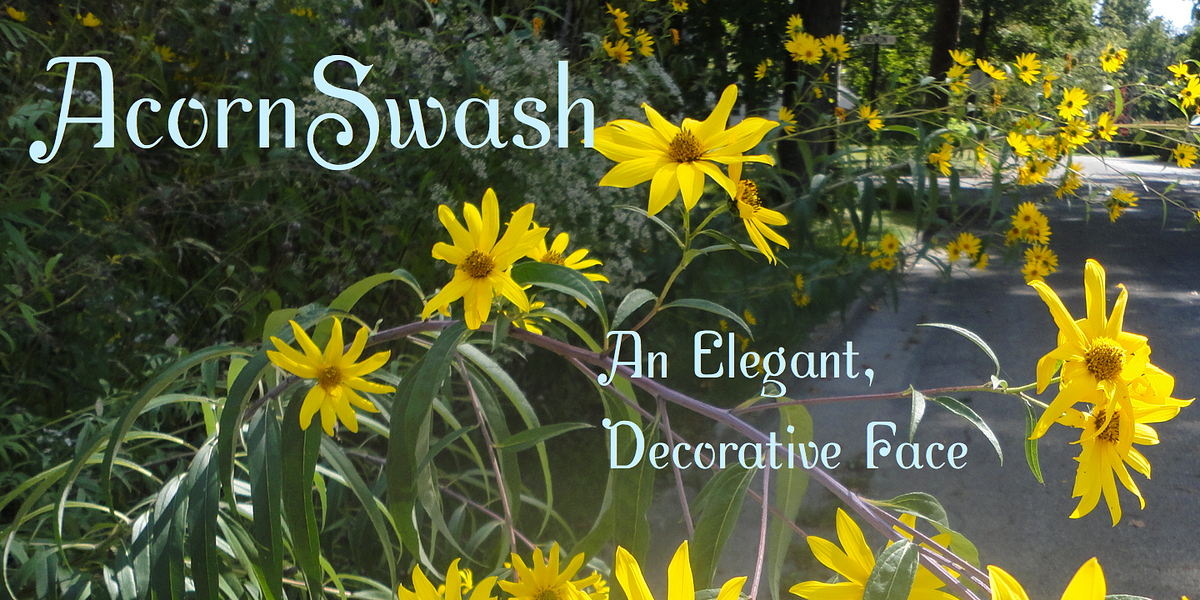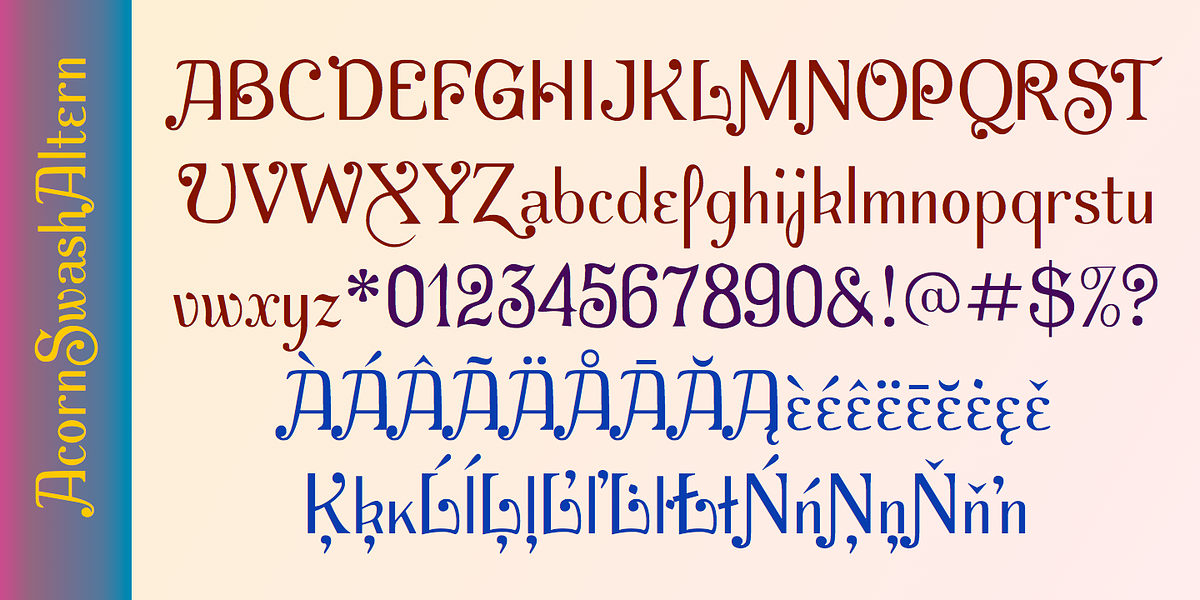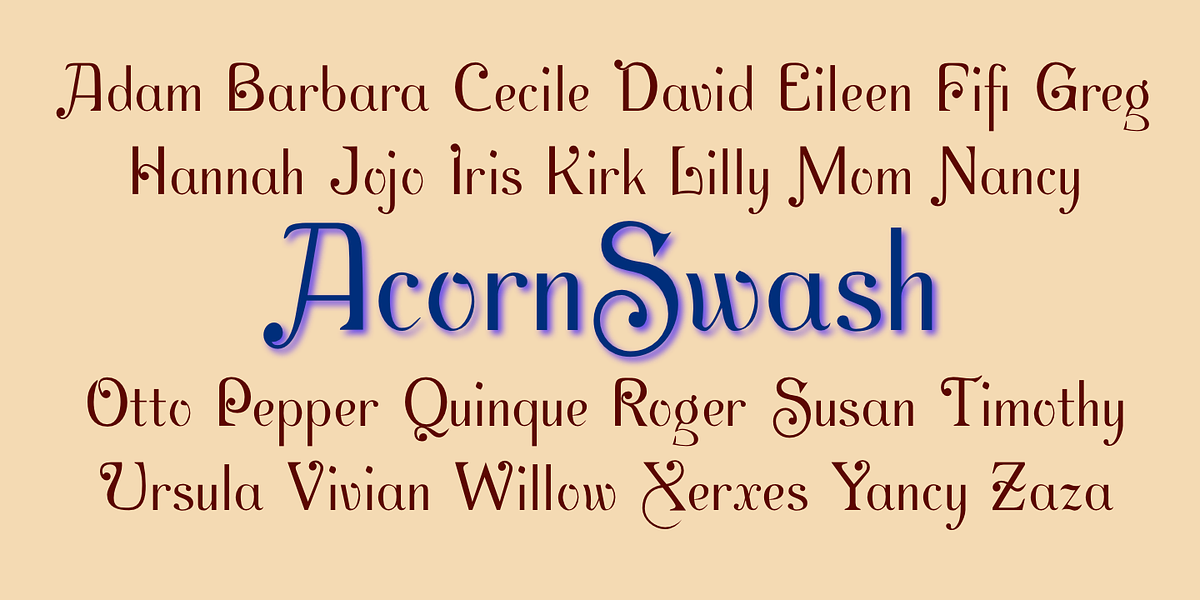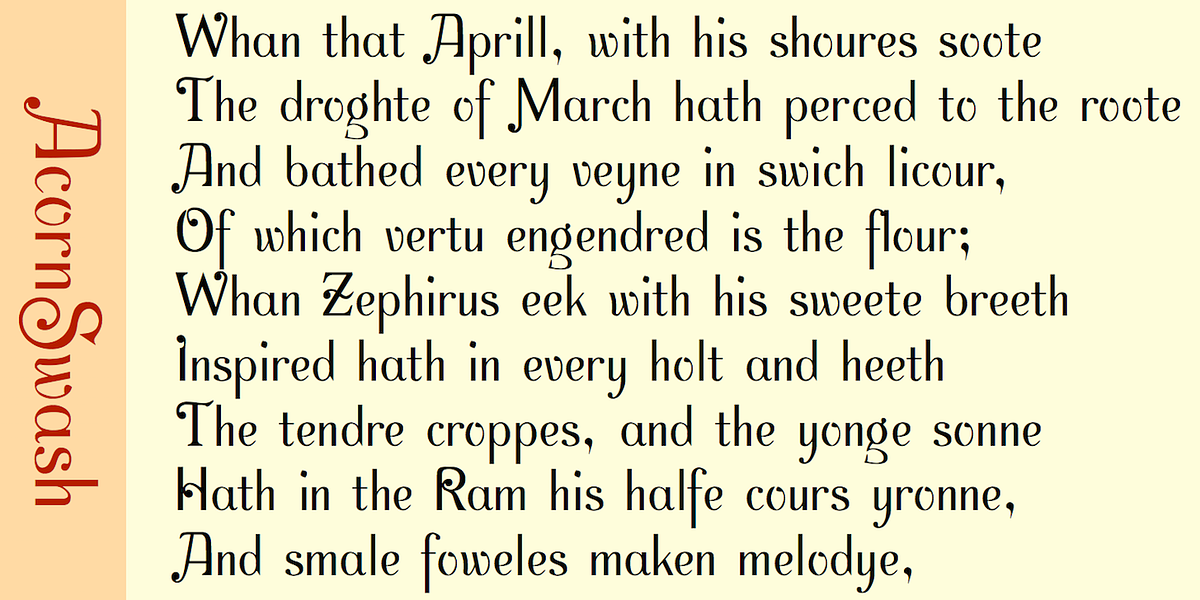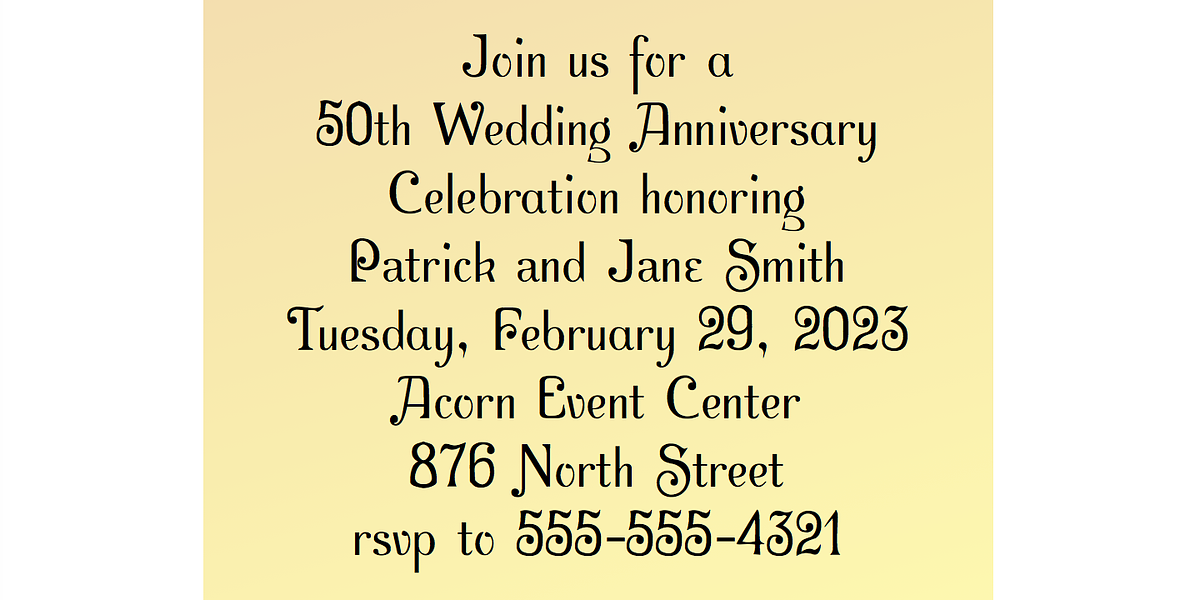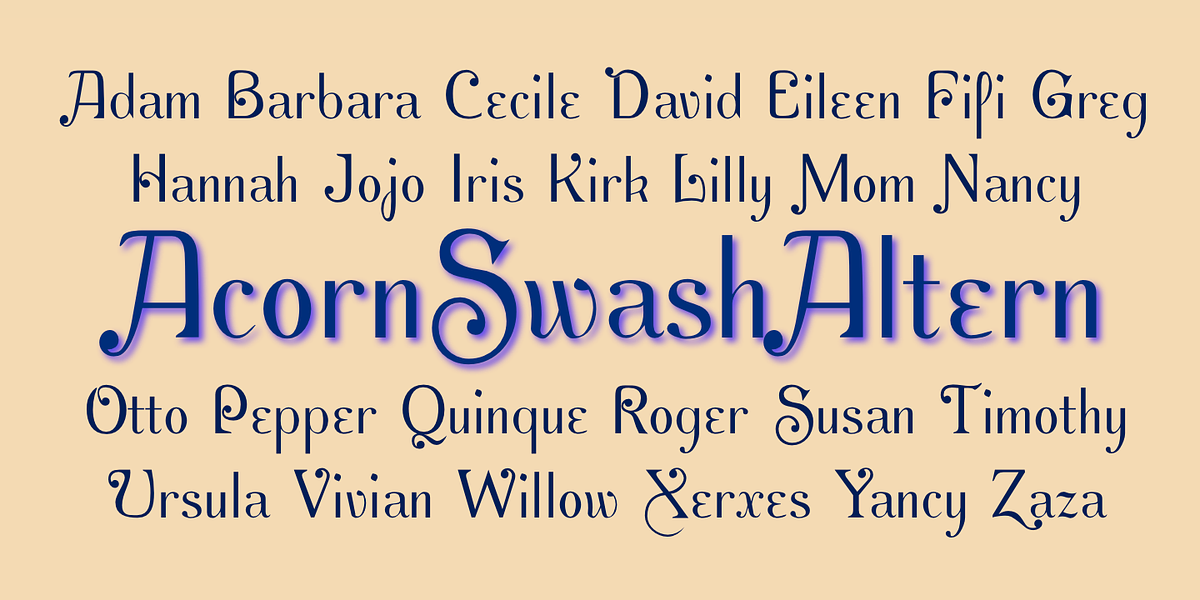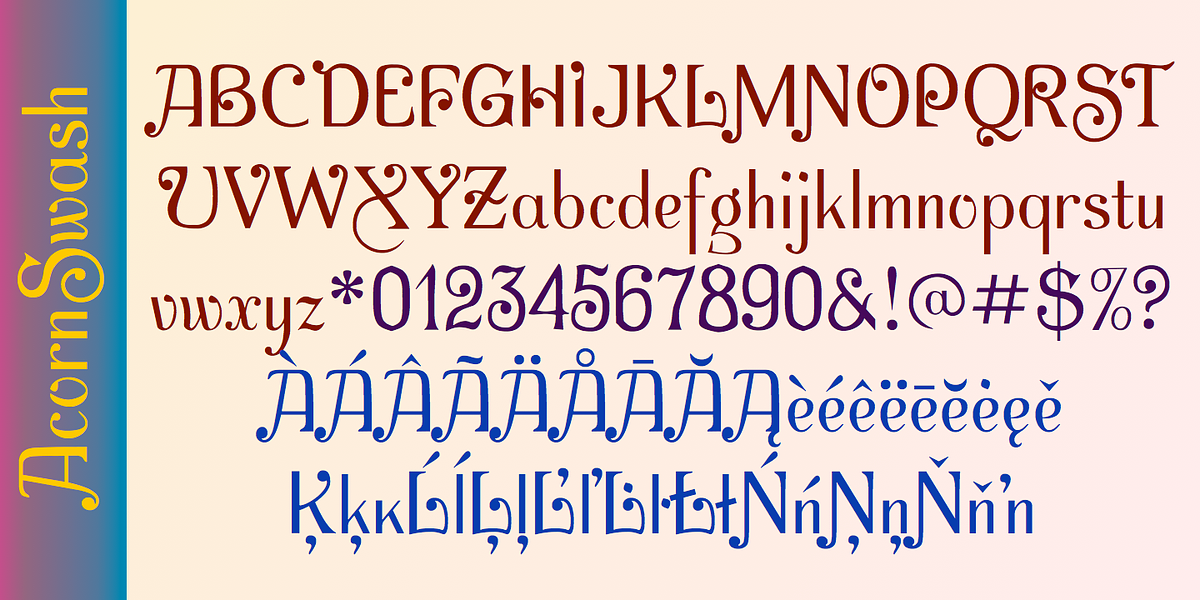
Acorn Swash
AcornSwash is an elegant sans serif display font characterized by its ornate, swashy capitals. Two versions of the font exist, differing in the design of specific lowercase letters (I, Z, a, e, f, g, j, k, and o).